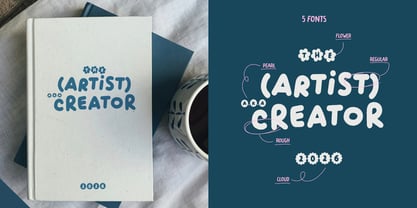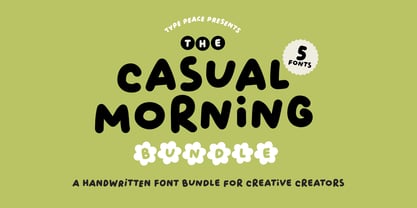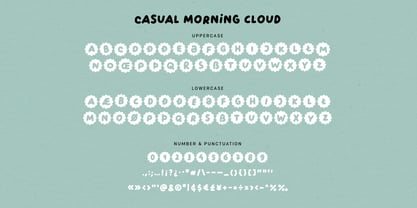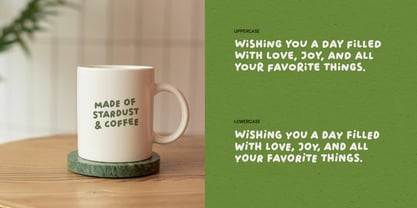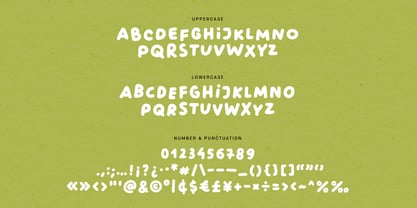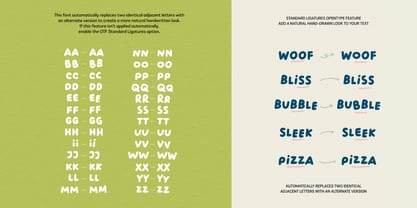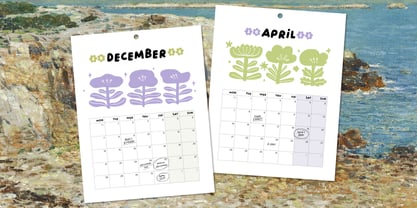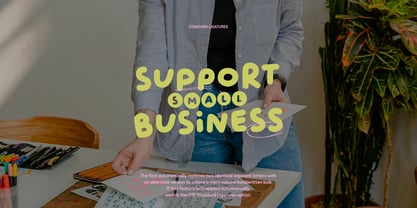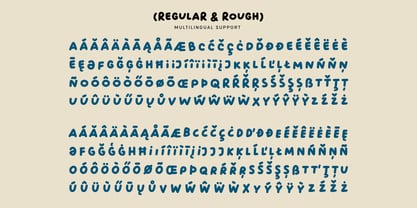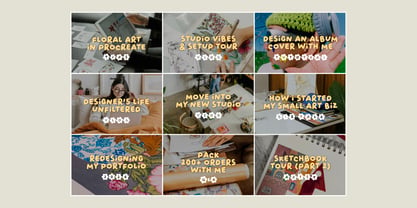
Casual Morning
The Casual Morning Font Family was designed by Hai Anh Nguyen and published by type peace. Casual Morning contains 5 styles and family package options. More about this family
CASUAL MORNING is a bold and playful all-caps handwritten font family that brings a youthful, dynamic charm to your designs. With 5 unique styles—Regular and Rough for titles and text, plus Cloud, Pearl, and Flower for decorative accents—CASUAL MORNING offers creative versatility in one cohesive package. Featuring multilingual support, it’s perfect for eye-catching social media thumbnails, fun branding, and expressive design projects that need a touch of personality. The font automatically replaces two identical adjacent letters with an alternate version to create a more natural handwritten look. (If this feature isn't applied automatically, enable the Standard Ligatures option.)